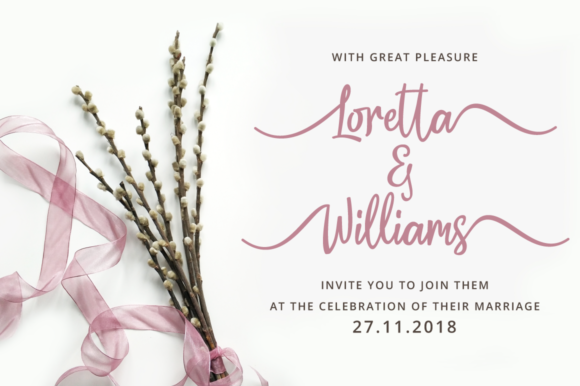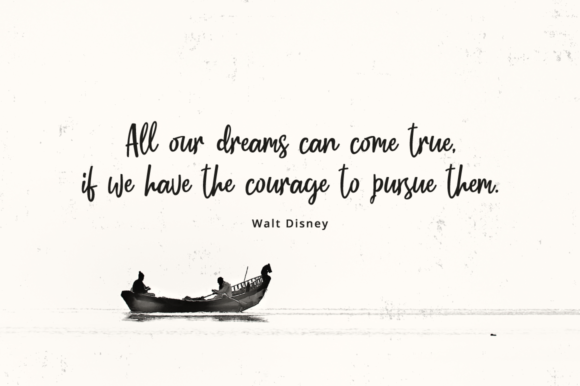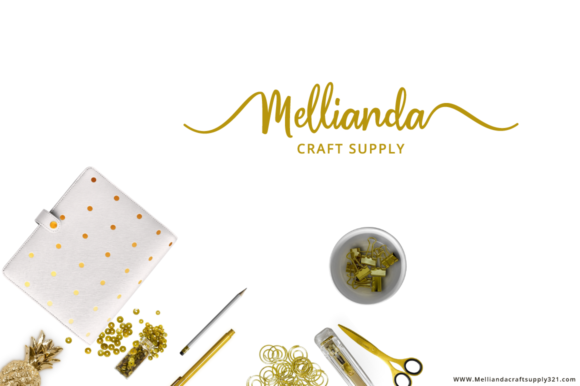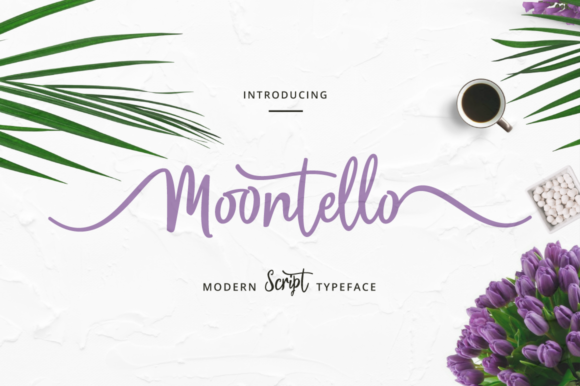
Introduction to Moontello Script Font
The Moontello is a fresh & natural script font with a handwritten style.
It has a natural style which will add a personal touch to your designs It’s perfect for greeting cards, branding materials, business cards, quotes, posters, logos, greeting cards, wedding stationery, and more.
Key Features of Moontello Script Font
Why Choose Moontello Script Font?
Moontello Script Font offers exceptional quality and versatility, making it a valuable addition to your design toolkit. Whether you’re creating for personal projects or commercial use, Moontello Script Font delivers professional results.